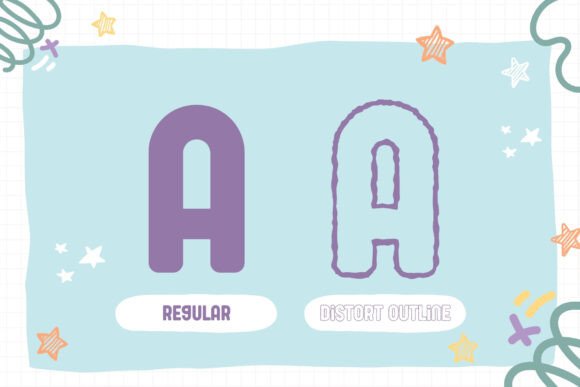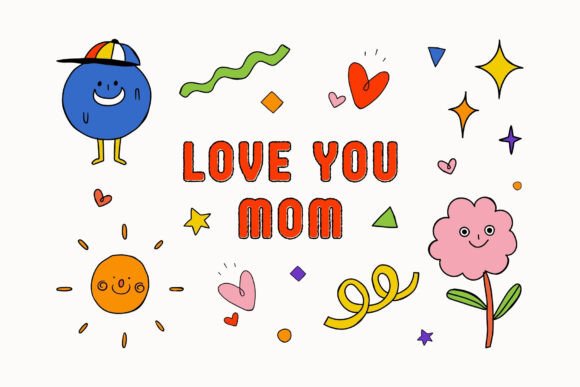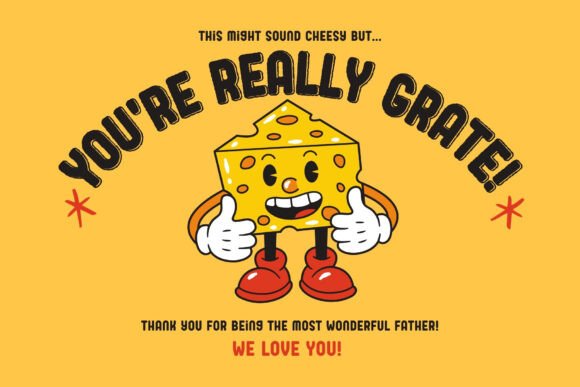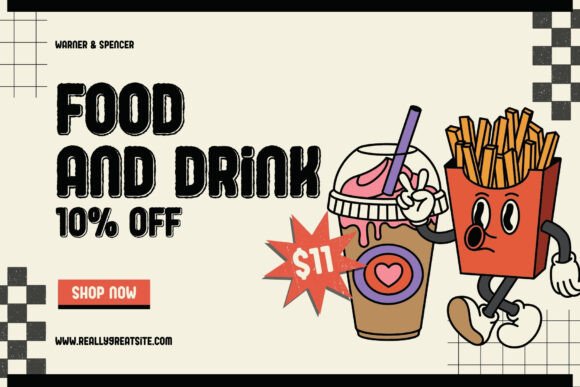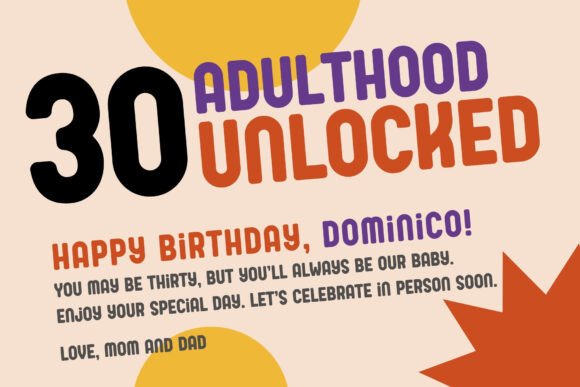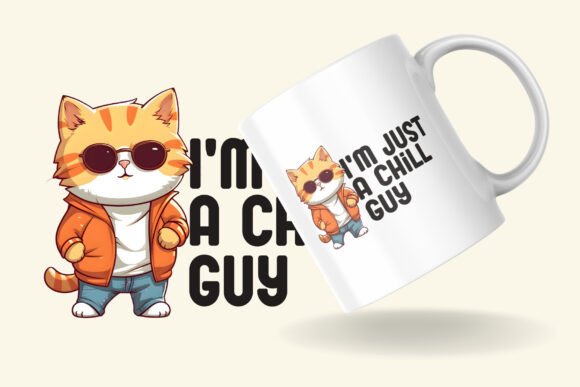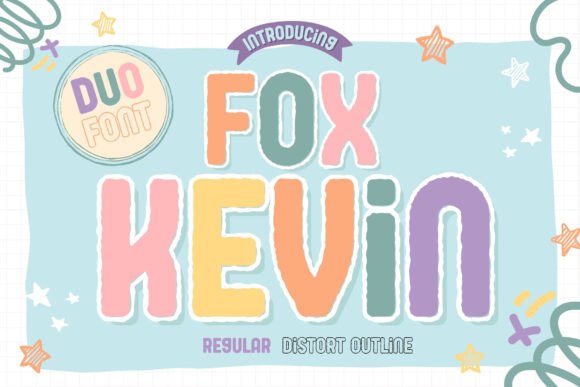
Introducing Fox Kevin and Fox Kevin Distort Outline Fonts: Elevate Your Designs with a Cool and Playful Touch
Are you tired of using the same old fonts in your designs? Look no further! Fox Kevin and Fox Kevin Distort Outline fonts are here to add a captivating and energetic touch to your creations. These cool and playful display fonts are perfect for designers and crafters who want to make their work stand out from the crowd.
Unique and Versatile Fonts for Various Design Applications
Fox Kevin and Fox Kevin Distort Outline fonts are incredibly versatile and can be used in a wide range of design applications. Whether you’re working on publications, menus, logos, business cards, or even printed on t-shirts, these fonts exude uniqueness and style. Their vibrant and expressive design makes them ideal for creating attention-grabbing headlines, t-shirt typography, banners, product labels, and more.
Key Features of Fox Kevin and Fox Kevin Distort Outline Fonts
• Vibrant and Expressive Design: These fonts boast a unique and energetic design that is sure to capture the attention of your audience.
• Cool and Playful Style: Fox Kevin and Fox Kevin Distort Outline fonts add a fun and playful touch to your designs, making them perfect for creative projects.
• Highly Versatile: Use these fonts in various design applications, from digital to print, to create stunning and cohesive designs.
• Easy to Read: Despite their playful design, these fonts are easy to read, making them perfect for use in body text or captions.
Why Choose Fox Kevin and Fox Kevin Distort Outline Fonts?
With so many fonts available, why choose Fox Kevin and Fox Kevin Distort Outline fonts? Here are just a few reasons:
• Stand Out from the Crowd: These fonts are designed to help you stand out from the crowd and make your designs more engaging and memorable.
• Perfect for Creative Projects: Fox Kevin and Fox Kevin Distort Outline fonts are ideal for creative projects, such as designing t-shirts, posters, or social media graphics.
• Professional-Quality Design: These fonts are designed with professional-quality in mind, ensuring that your designs look polished and cohesive.
Tips for Using Fox Kevin and Fox Kevin Distort Outline Fonts
Here are some tips for getting the most out of Fox Kevin and Fox Kevin Distort Outline fonts:
• Experiment with Different Sizes and Colors: Don’t be afraid to experiment with different sizes and colors to find the perfect combination for your design.
• Pair with Other Fonts: Try pairing Fox Kevin and Fox Kevin Distort Outline fonts with other fonts to create a unique and cohesive design.
• Use in Combination with Images: Use these fonts in combination with images to create stunning and eye-catching designs.
In conclusion, Fox Kevin and Fox Kevin Distort Outline fonts are a cool and playful display font that adds a captivating and energetic touch to your designs. With their vibrant and expressive design, versatility, and professional-quality design, these fonts are perfect for designers and crafters who want to elevate their work. Whether you’re working on a creative project or just want to add some style to your designs, Fox Kevin and Fox Kevin Distort Outline fonts are an excellent choice.